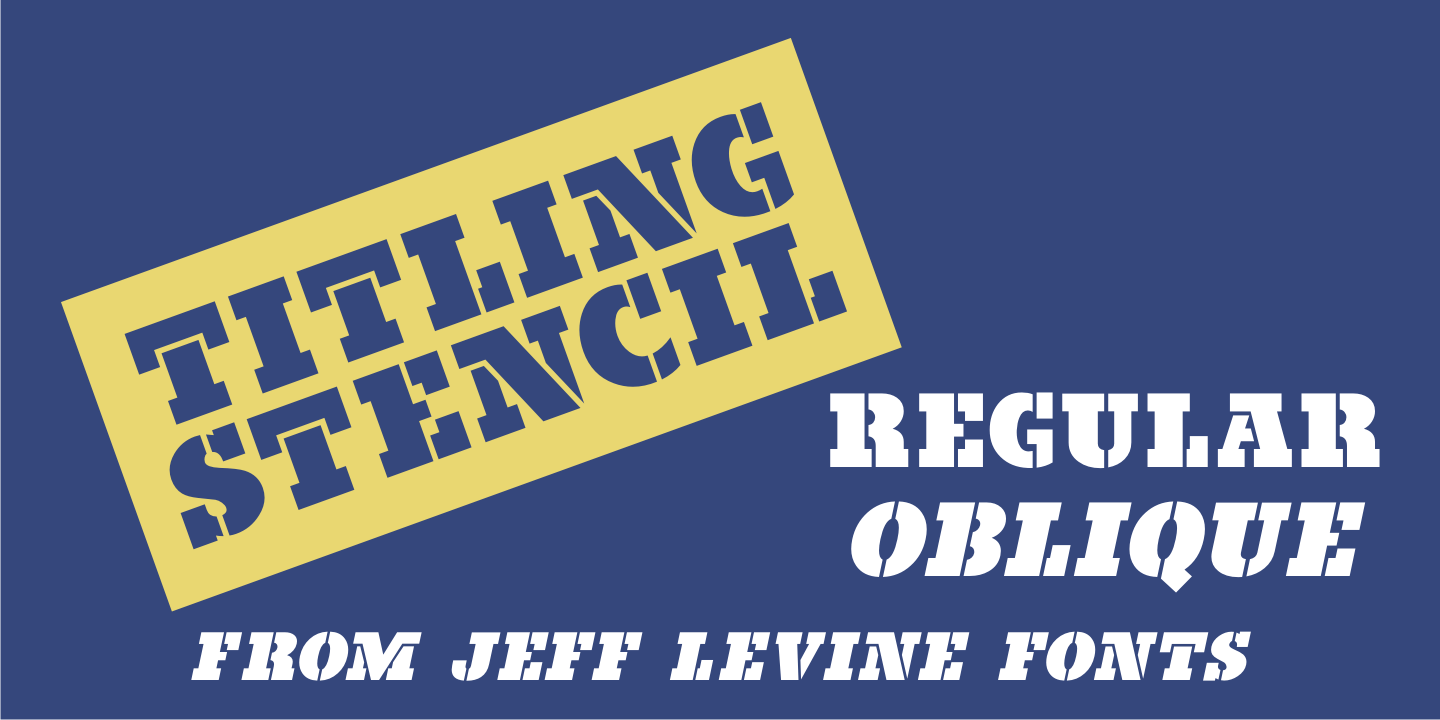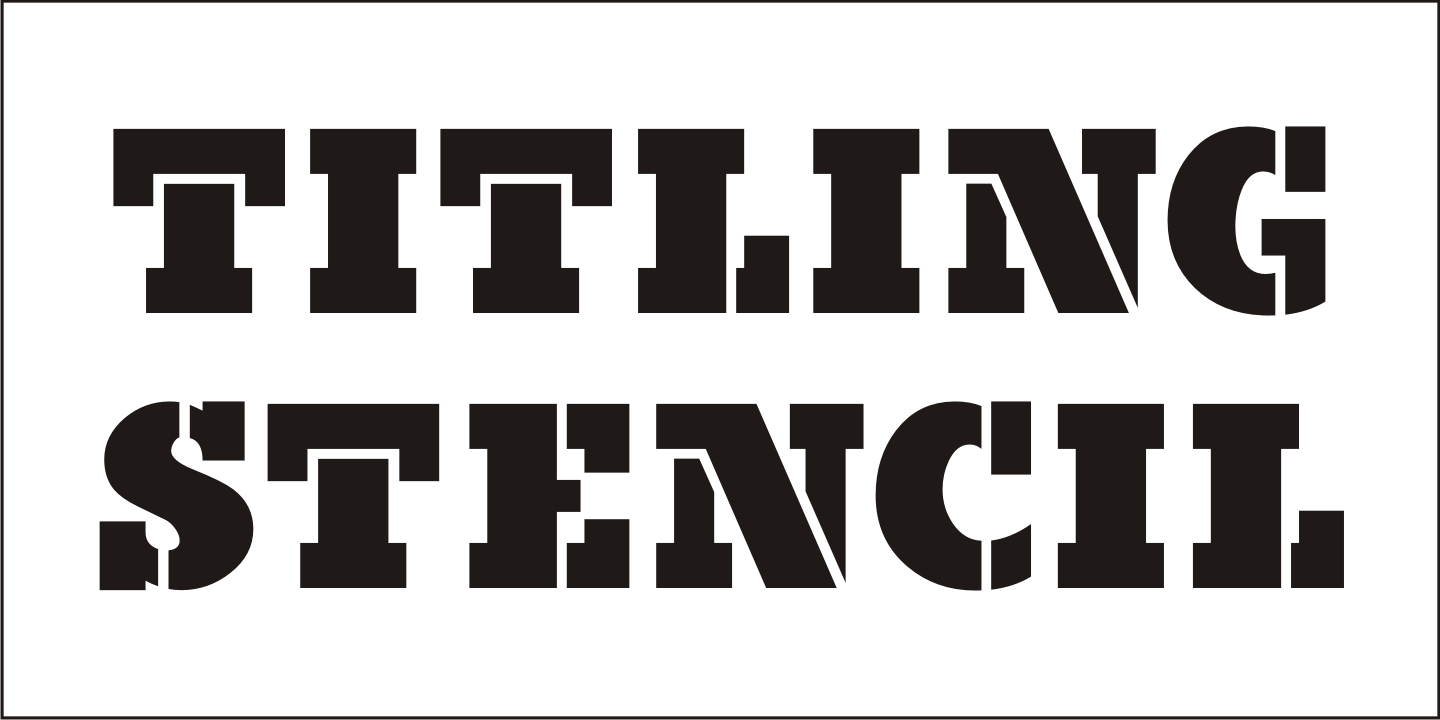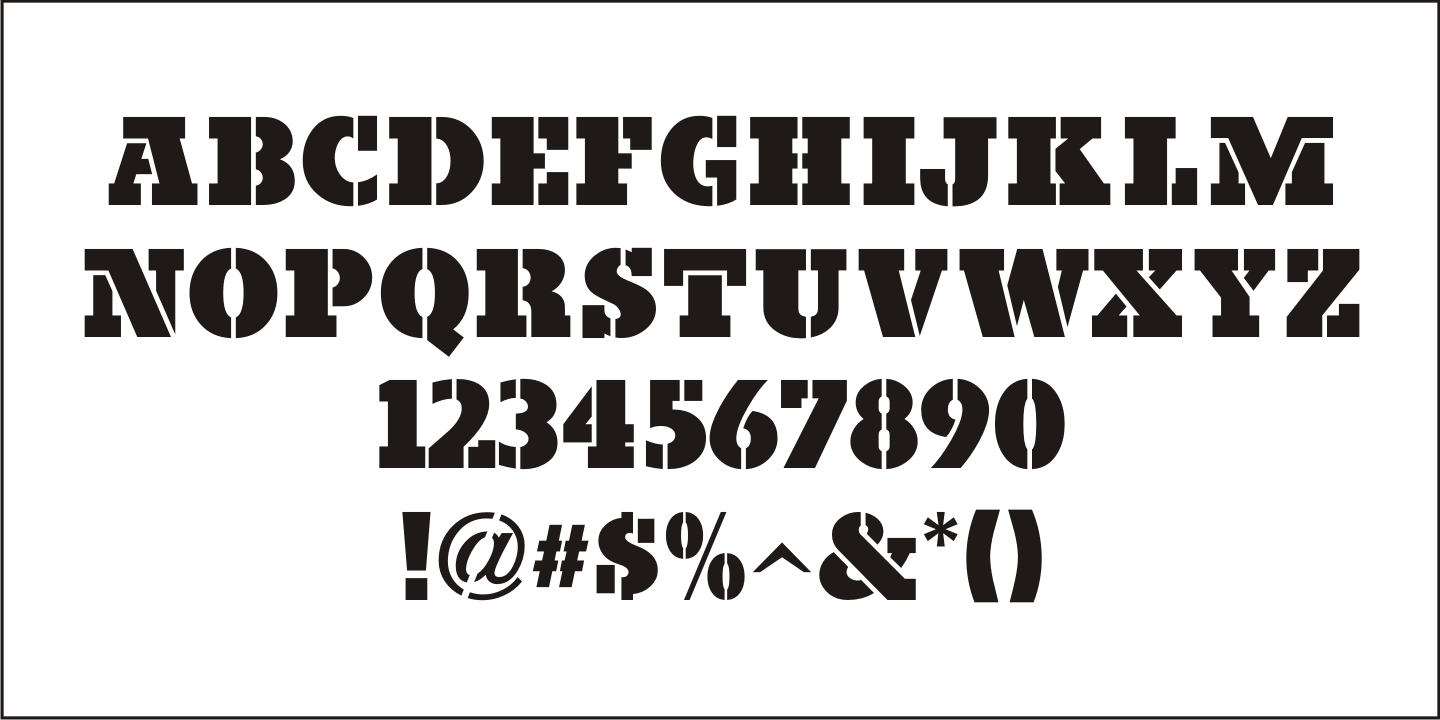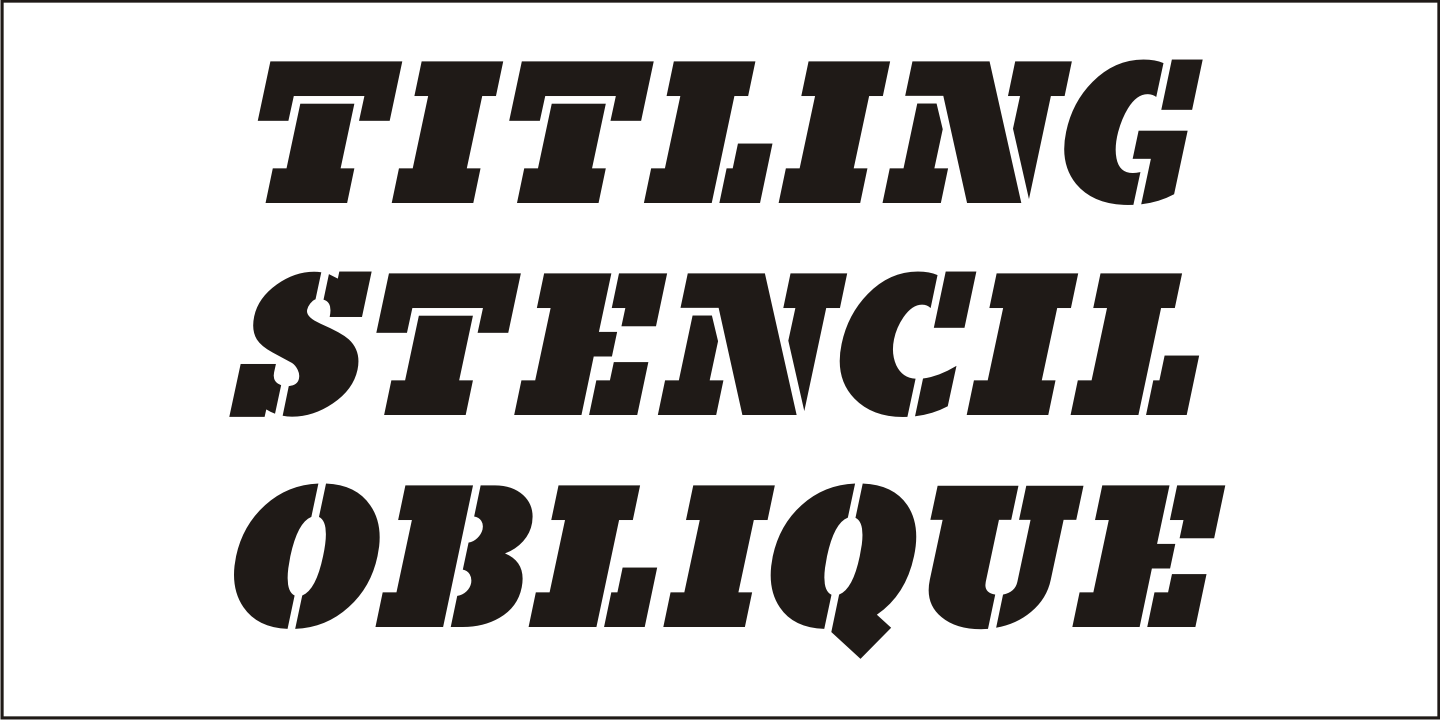
Titling Stencil
Buy NowTitling Stencil JNL is an extra bold stencil treatment of R. Hunter Middleton's 'Karnak' (produced in 1936 for Ludlow) and is a companion font to both Bookkeeping JNL and Bookkeeper JNL (a lightweight version of the type design).
Middleton based his 'Karnak' family of typefaces on the geometric slab-serif 'Memphis', which was designed in 1929 by Dr. Rudolf Wolf and released originally by the Stempel Type Foundry of Germany.
According to Wikipedia, 'Karnak' was a named after the Karnak Temple Complex in Egypt, in reference to the fact that early slab serifs were often called 'Egyptians' as an exoticism by nineteenth-century type founders.'
Titling Stencil JNL is available in both regular and oblique versions.